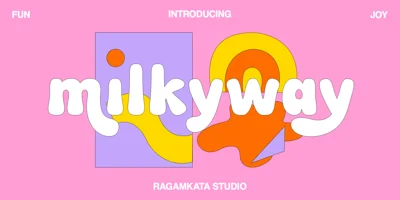
Milkyway Font
Milkyway Font is perfect for planetarium exhibition materials, space exploration museum branding, astronomy app interfaces, sci-fi movie titles, cosmic meditation retreat signage, stargazing event promotions, space-themed educational content, and celestial jewelry boutique marketing.
Milkyway Font is exciting because it captures the infinite wonder of cosmic exploration with its ethereally flowing letterforms that seem to drift through stellar space like stardust scattered across the universe. The typeface embodies the mysterious beauty of galactic phenomena and the profound sense of awe that comes from contemplating our place in the cosmos, creating an immediate sense of celestial wonder and universal connection that resonates with dreamers and explorers.
Milkyway Font family includes Light, Regular, Medium, Bold, and Stellar variants, complemented by cosmic swirls and astronomical decorative elements, providing designers with otherworldly typography tools for creating communications that celebrate the majesty of space and the human quest for cosmic understanding.
Whether you're developing a space science brand identity, designing astronomical education materials, or creating cosmic entertainment content, Milkyway Font offers unmatched celestial authenticity and universal appeal. This mesmerizing typeface perfectly balances cosmic aesthetics with earthly readability requirements, ensuring your communications resonate with audiences who seek to understand our universe and explore the infinite possibilities that exist beyond our world. The font's flowing character variations and galactic rhythm make it particularly effective for brands that emphasize discovery, wonder, and the kind of transformative experience that occurs when humans contemplate the vastness of space. Science education professionals consistently select Milkyway Font when projects require typography that communicates cosmic mystery, scientific wonder, and the kind of universal perspective that inspires humanity to reach for the stars, making it indispensable for space science branding, astronomy education marketing, and any application where cosmic typography can evoke the breathtaking beauty of our galaxy and inspire audiences to embrace their curiosity about the universe while celebrating the remarkable human achievements in space exploration that continue to expand our understanding of cosmic mysteries.